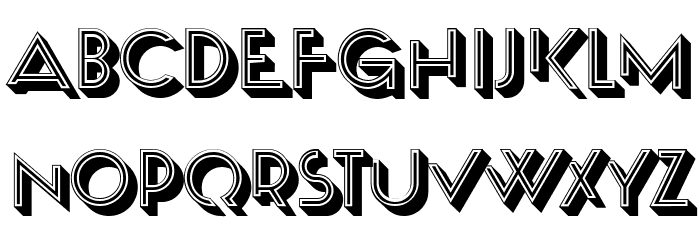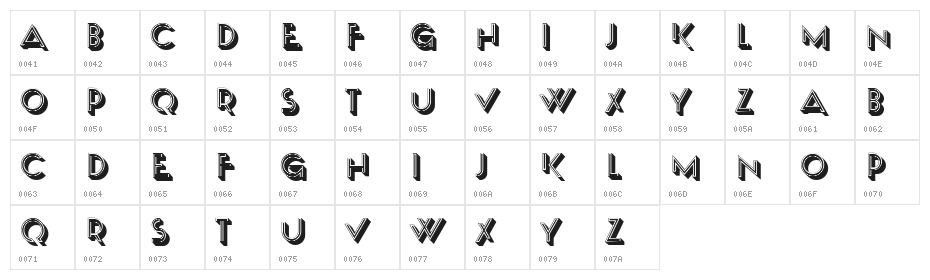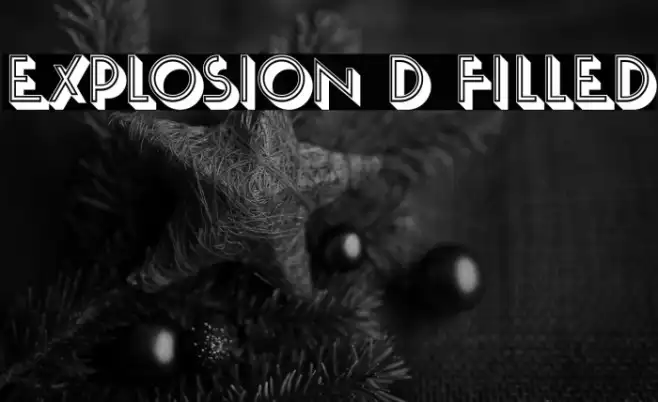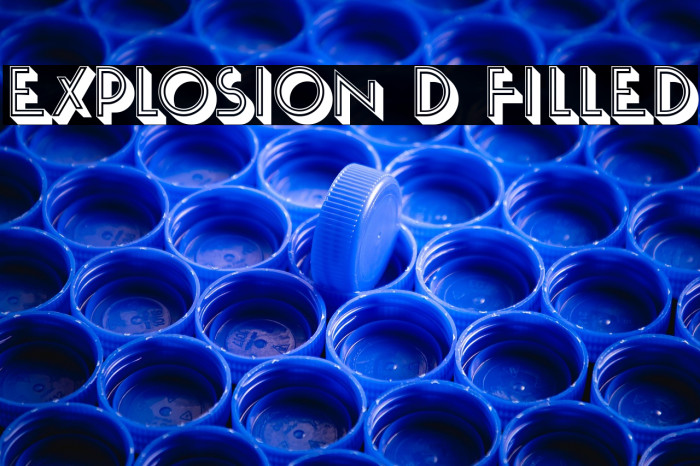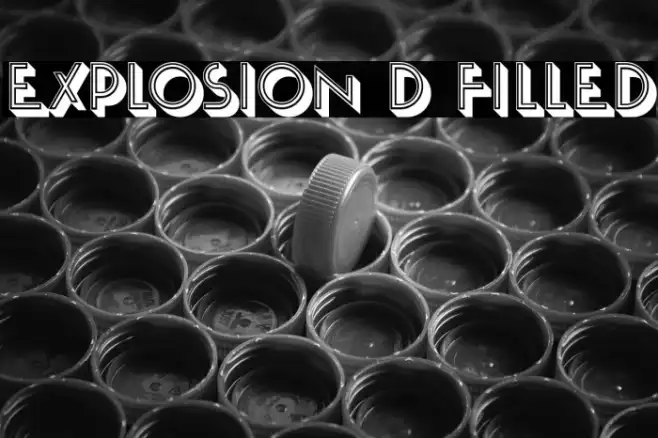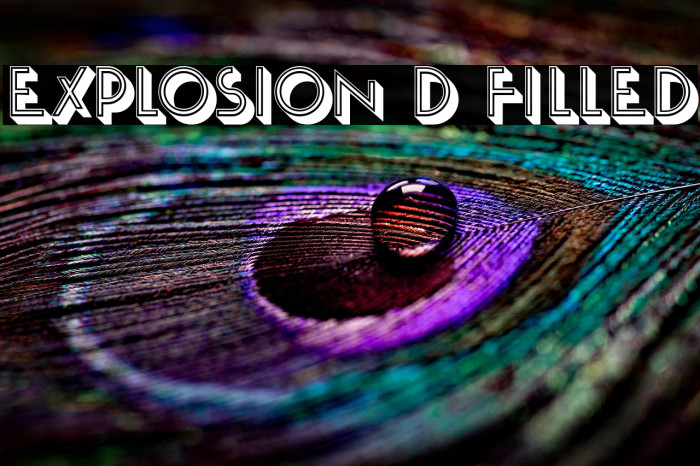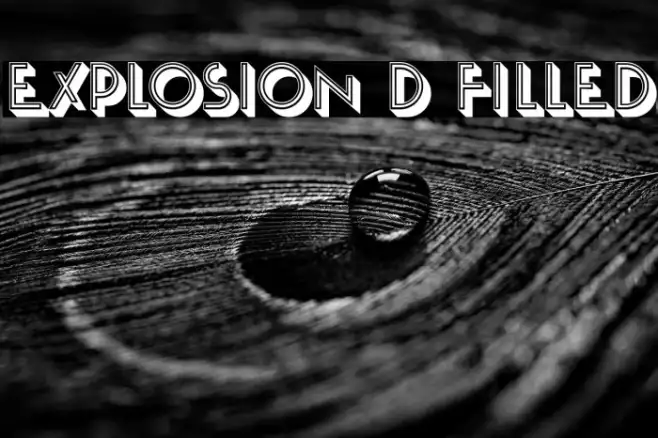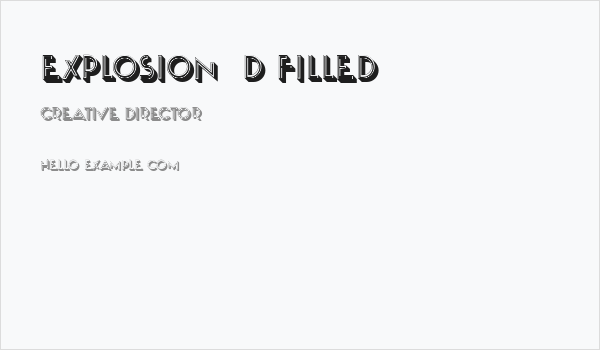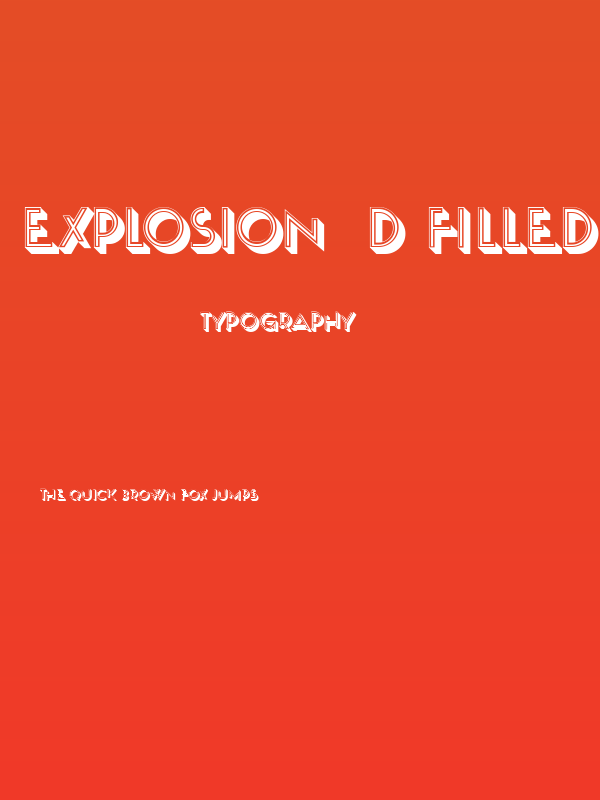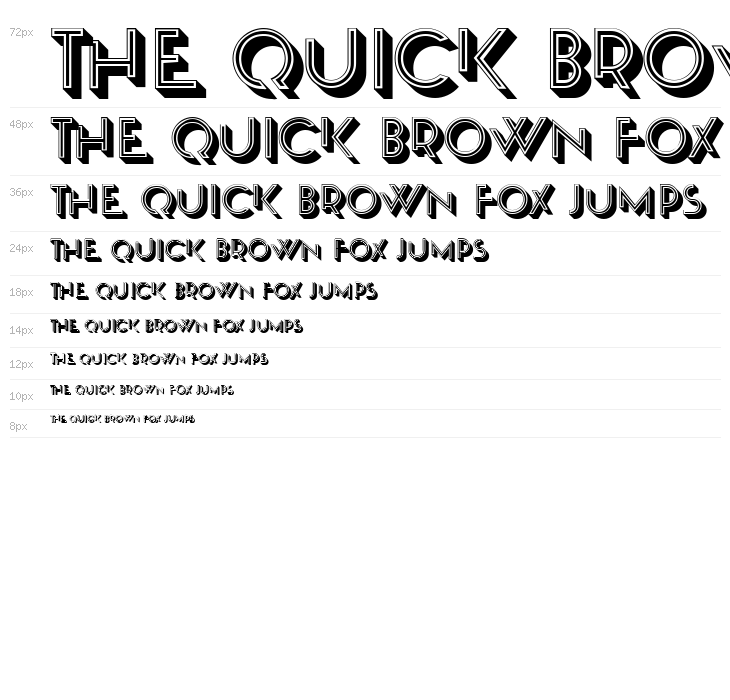
Explosion 3D Filled Font
Explosion 3D Filled Description
This font features a bold, three-dimensional style with a filled appearance, creating a striking visual impact. The letters are designed with a shadow effect that gives them depth and a sense of movement. The geometric shapes are clean and sharp, with a modern aesthetic that is both eye-catching and versatile. The uppercase letters are consistent in height, while the overall design maintains a uniformity that enhances readability despite its decorative nature. This font is ideal for making a statement in any design project, offering a dynamic and engaging look.
| Proposed Projects | Ideal for posters, headlines, logos, and any design requiring a bold, dynamic statement. |